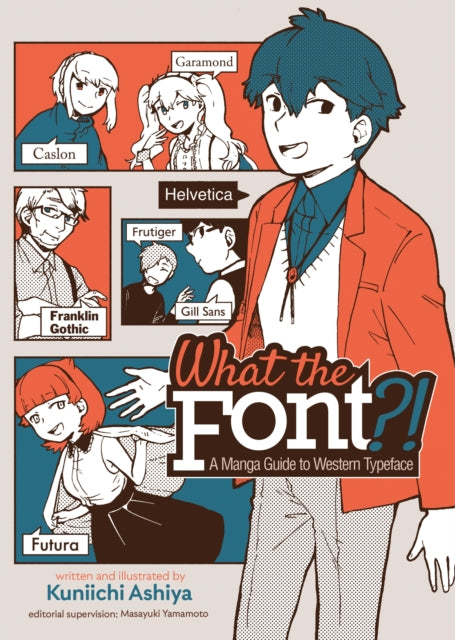
What the Font?! - A Manga Guide to Western Typeface
Marusu, a sales representative, is forced to take over the job of creating logos in a small production company. Luckily, Helvetica, the personification of a font, appears to guide Marusu into the world of typeface and design. This fun and educational book is the perfect way to learn about typography through the manga personification of various fonts.
Marusu, a sales representative in a small production company, finds herself unexpectedly taking over the job of creating logos when the designer suddenly disappears. However, Marusu faces a significant challenge as she has no knowledge of fonts or design. Fortunately, Helvetica, the personification of the font, appears to guide Marusu into the world of typography and design.
This captivating and informative book is an excellent way to explore the world of typography through the manga personification of various fonts, including Futura, Arial, Optima, and more. It sheds light on the design behind the words that readers absorb every day, making it an enjoyable and educational experience.
As Marusu learns about typography, she discovers the impact that different fonts can have on the overall aesthetic of a design. She learns about the different styles, weights, and variations of fonts and how they can be used to convey emotions, evoke moods, and enhance readability. Through Helvetica's guidance, Marusu also gains an understanding of the principles of design, such as balance, contrast, and hierarchy, which are essential in creating effective logos.
One of the most interesting aspects of the book is the way it incorporates various fonts into its illustrations. Each chapter focuses on a different font, and Helvetica is depicted in a unique and playful manner, reflecting its characteristics and personality. This visual representation helps readers to connect with the fonts on a deeper level and makes the learning process more engaging and enjoyable.
In addition to its educational value, "Helvetica: The Personification of a Font" is also a visually stunning work of art. The manga illustrations are vibrant and colorful, and the characters are charming and relatable. The book's design is sleek and modern, with a clean layout that makes it easy to navigate.
Overall, "Helvetica: The Personification of a Font" is a must-read for anyone interested in typography, design, or just looking for a fun and informative book. It offers a unique perspective on the world of fonts and design and provides valuable insights into the creative process. Whether you are a professional designer or just a casual reader, this book will inspire you to think about the words you use and the design behind them.